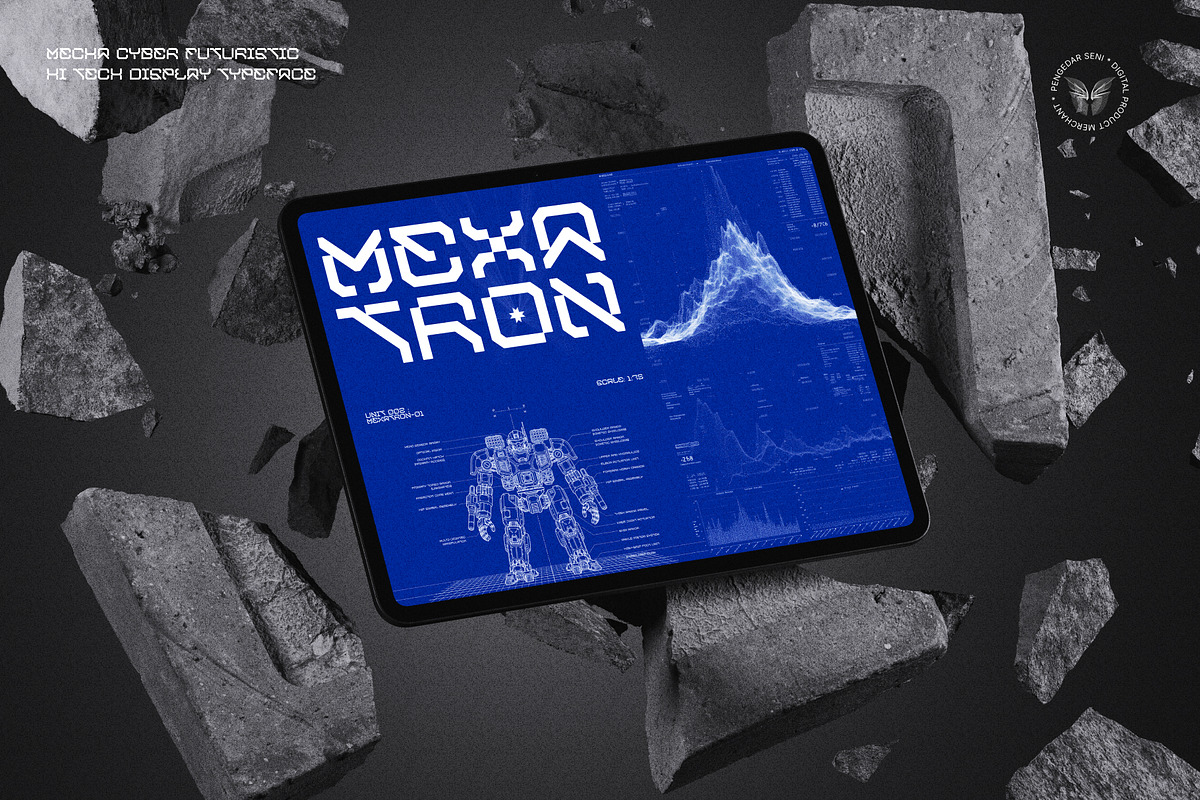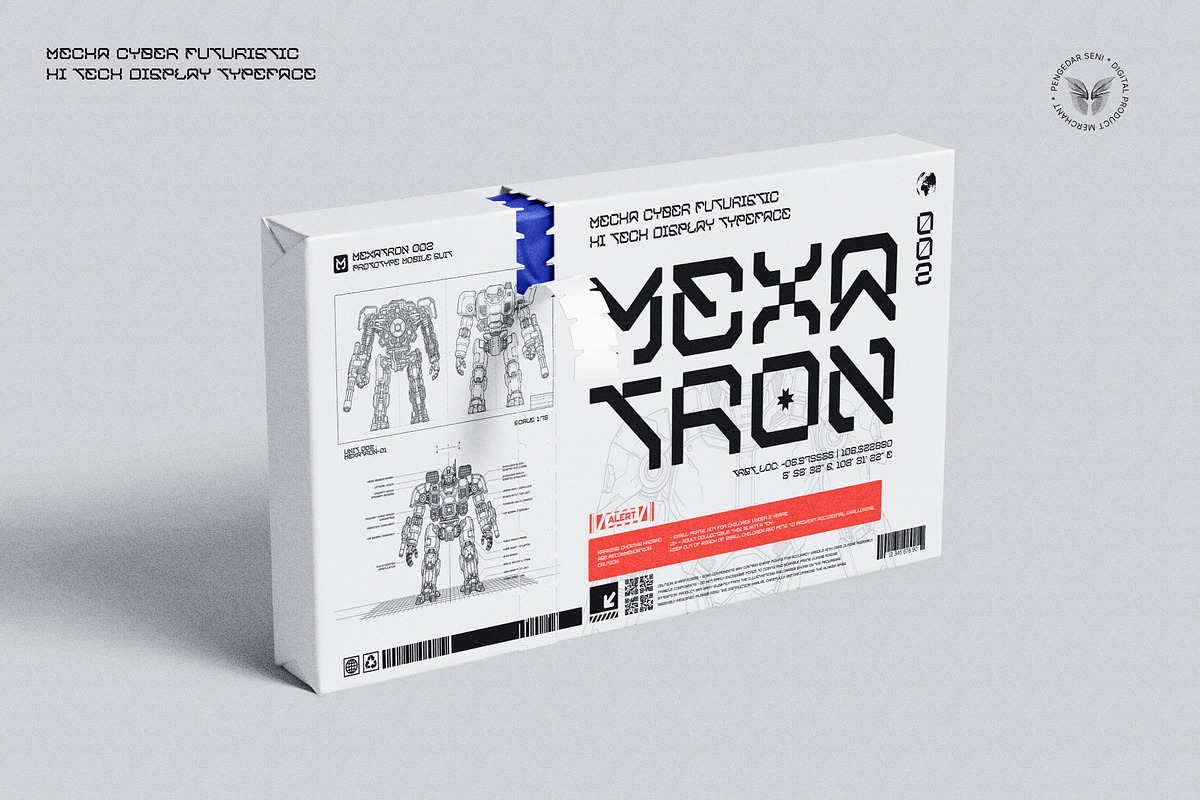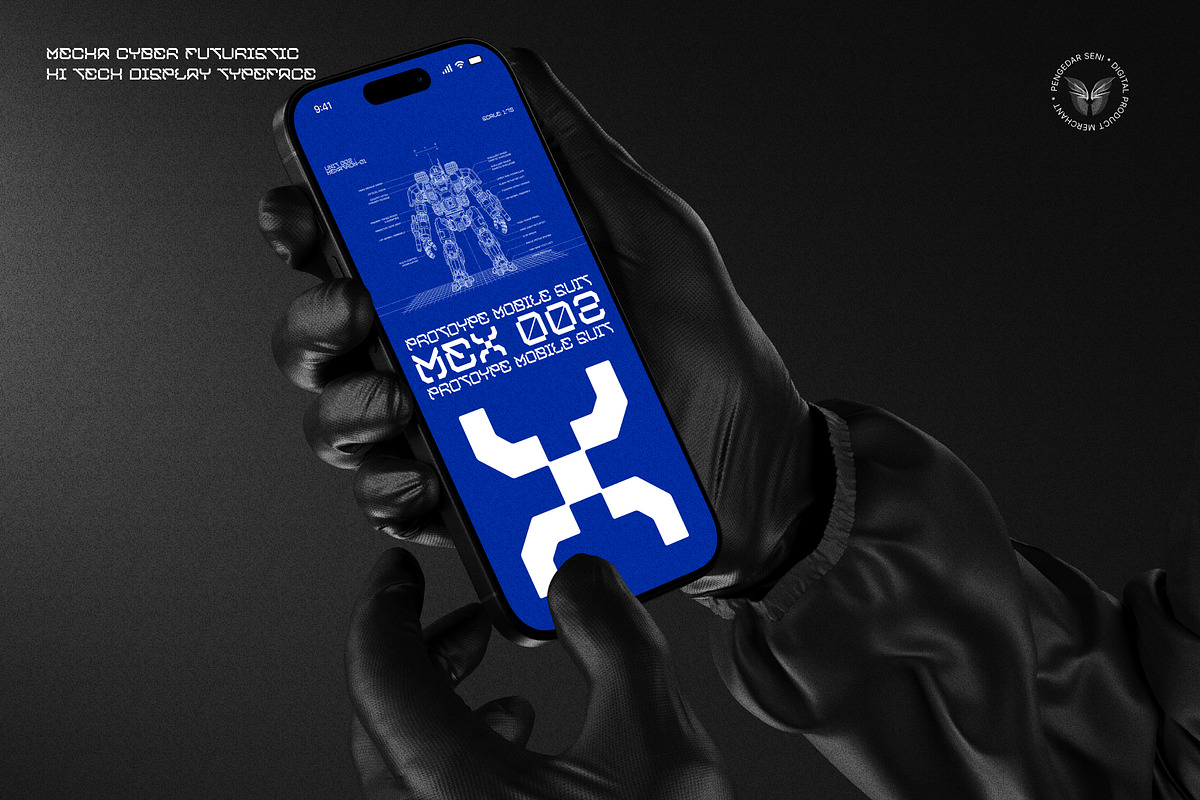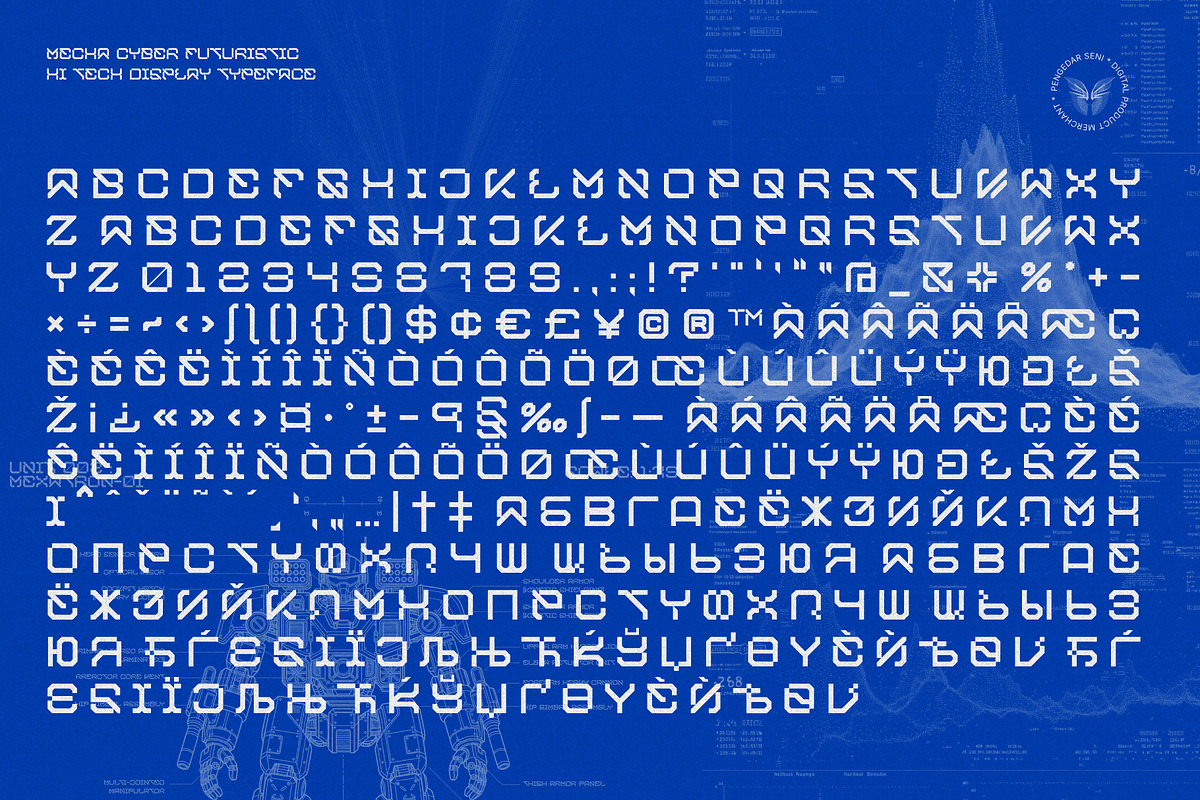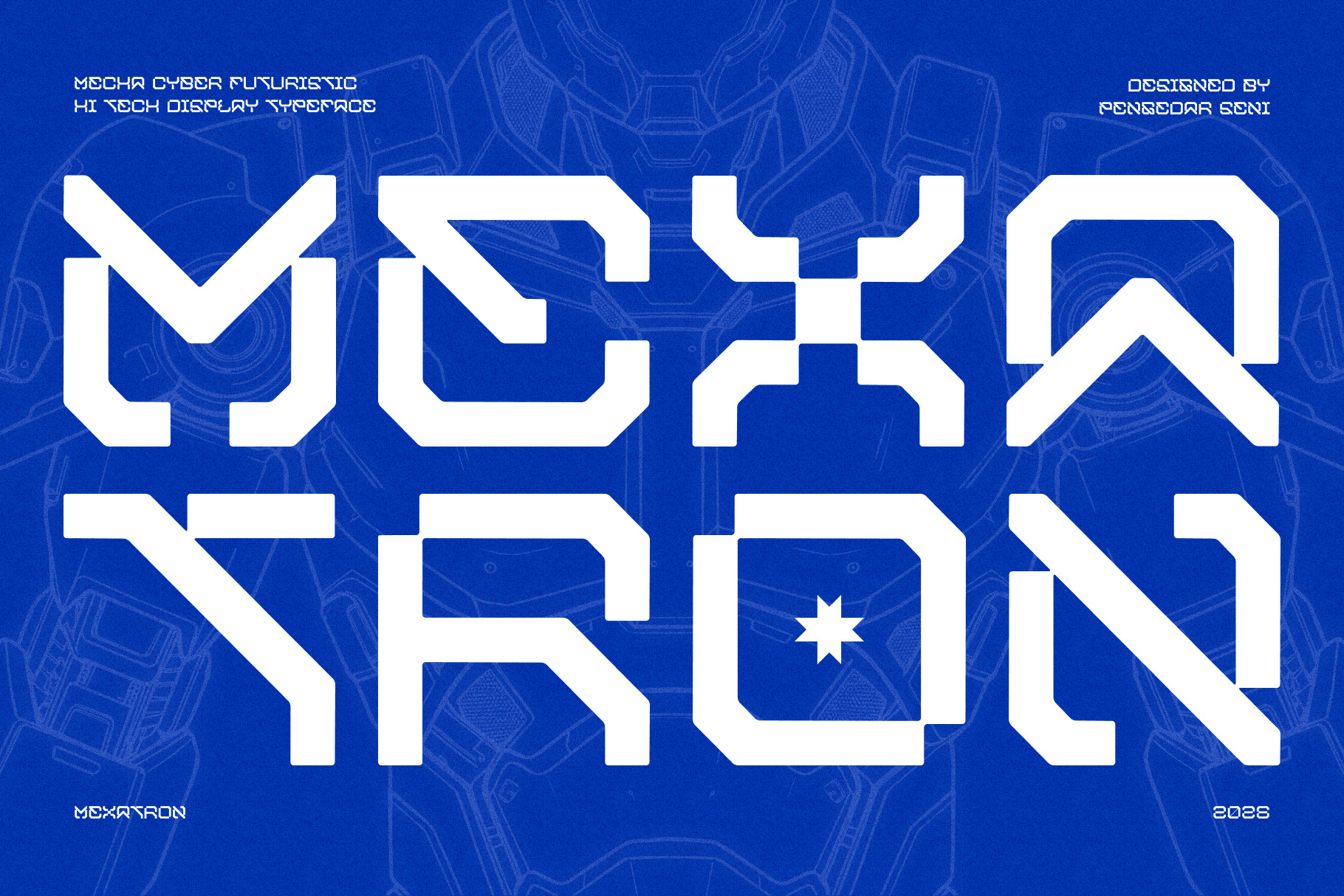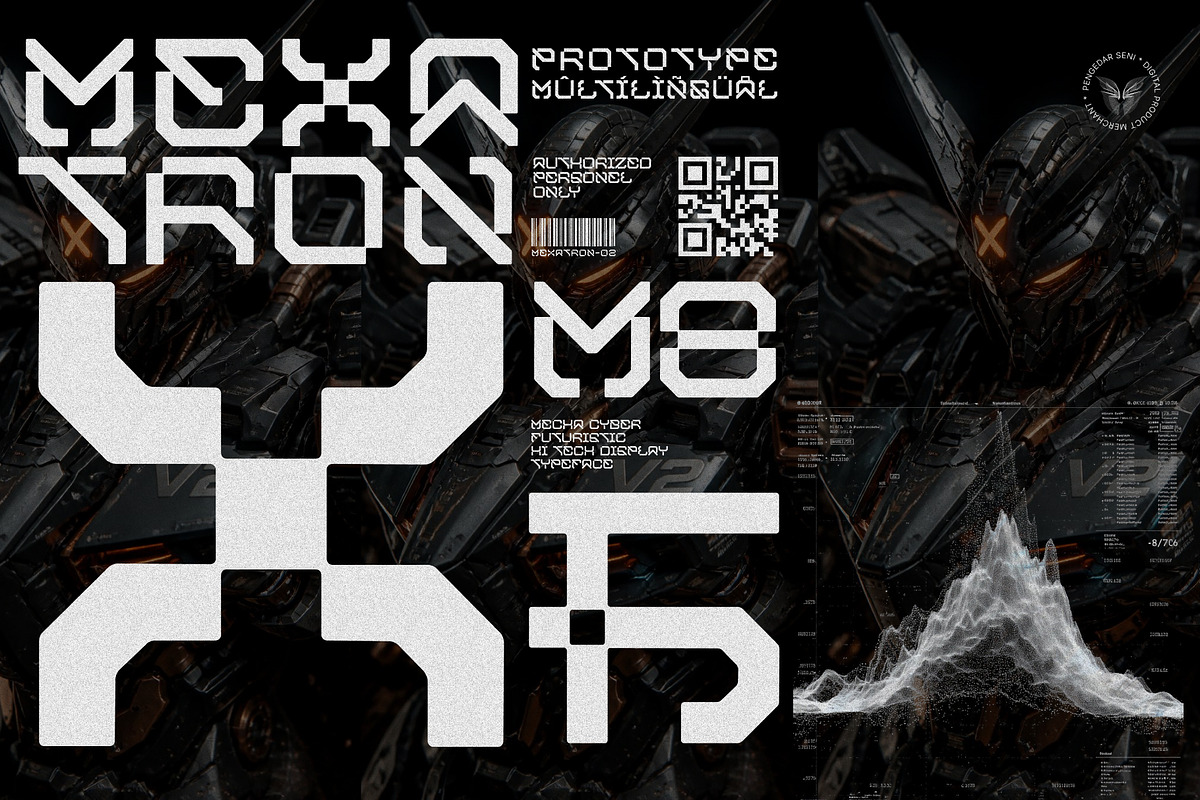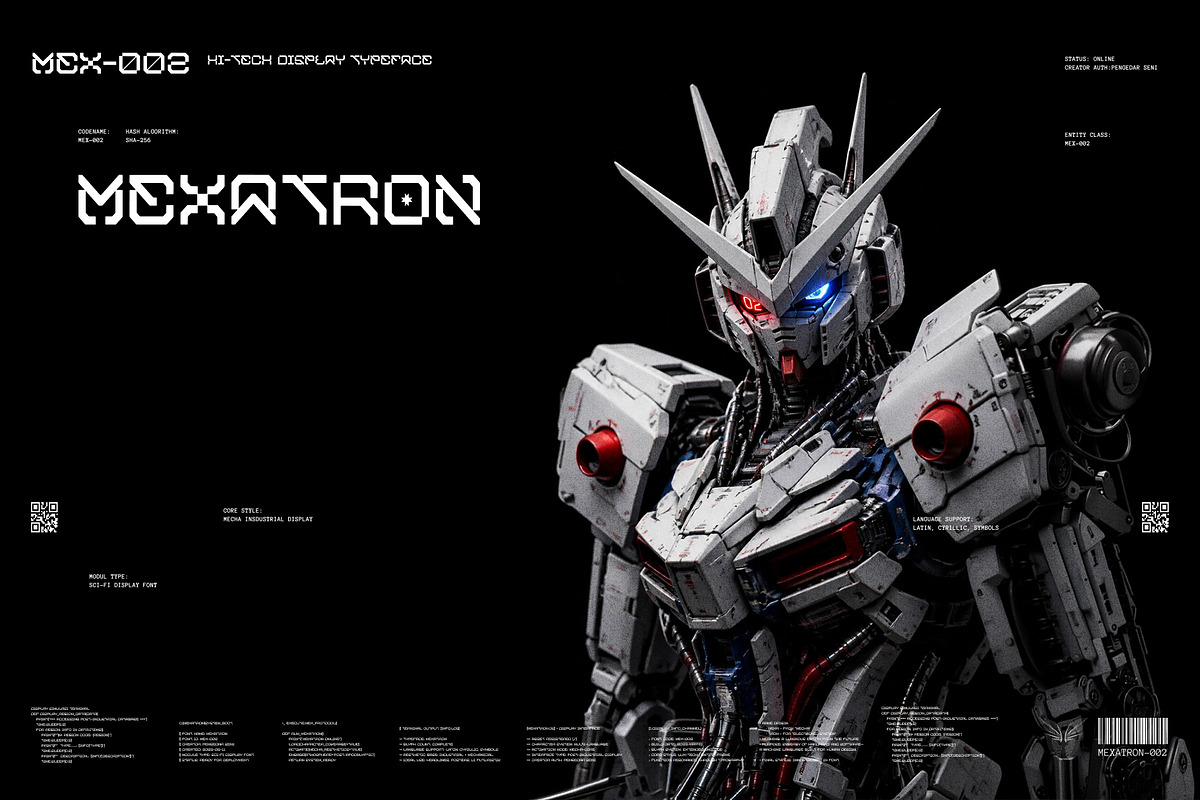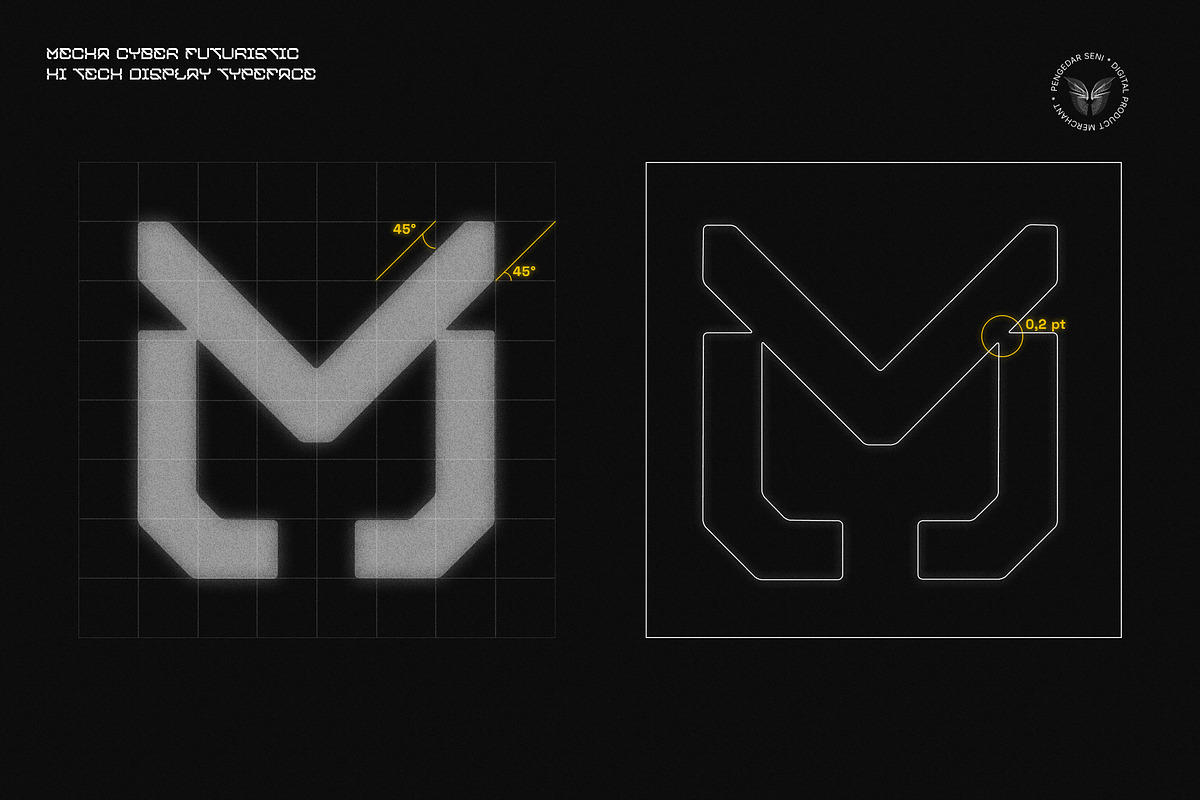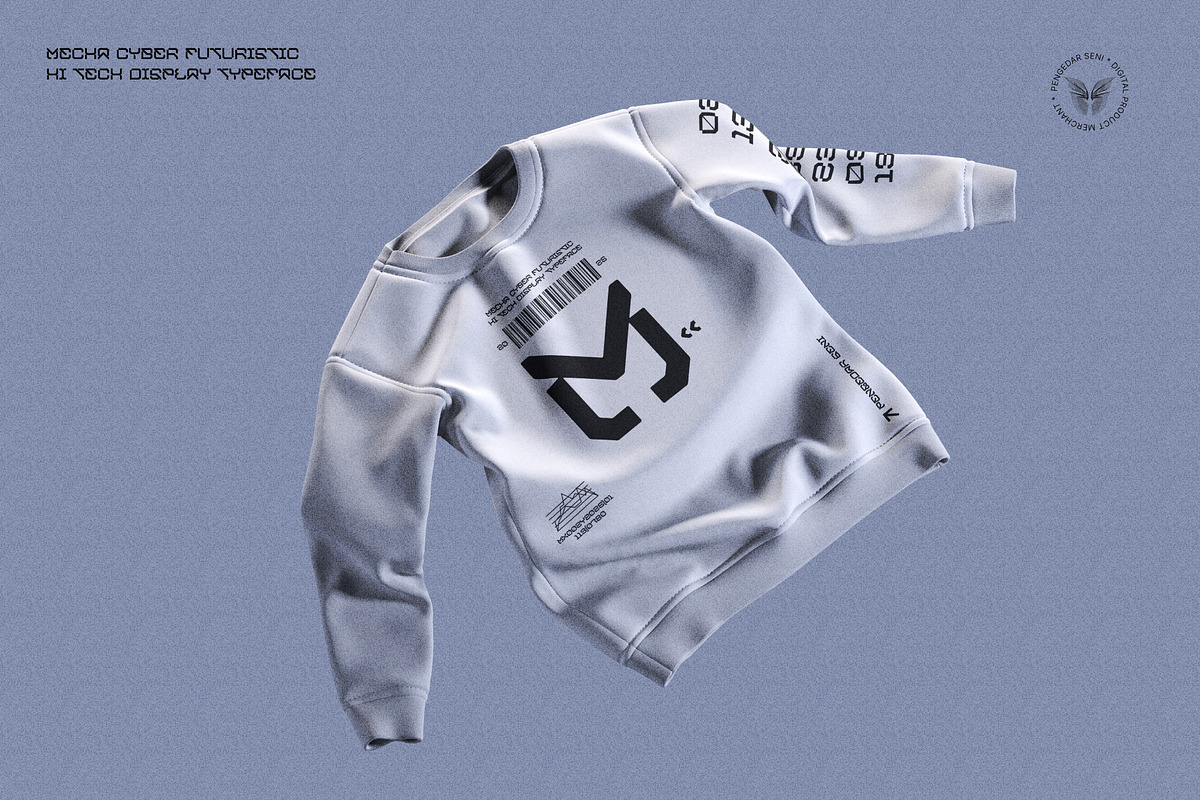
Mexatron - Sci-Fi Display Font
Forged from steel and code. The ultimate typographic mobile suit.
MEXATRON is a heavy-duty, cyber-futuristic display typeface engineered for the next generation of visual communication. Deeply inspired by mecha anime, advanced robotics, and dystopian industrial aesthetics, this font acts as the ultimate typographic armor for your creative projects.
The Philosophy Behind MEXATRON ⚙️
Mexa (Mecha / Mechanical): Represents raw, physical power, heavy machinery, and the imposing structure of giant mobile suits.
Tron (Electronic System): Symbolizes the digital core, the glowing UI screens, and the high-tech circuitry that brings the machine to life.
Together, MEXATRON is the perfect synergy of hardware and software—a machine language built for human design.
Technical Precision: 45° Angles & Fluid Bridges 📐
MEXATRON isn't just drawn; it's constructed. The letterforms are built on a rigid geometric grid, heavily featuring signature 45-degree angle cuts that mimic the aerodynamic armor plating of futuristic robots and spacecraft. To balance this aggressive industrial silhouette, the design incorporates a fluid bridge system—subtle, mathematically calculated smooth transitions at the joints. This prevents the font from feeling overly stiff, simulating the seamless, fluid movement of mechanical hydraulics and giving it a highly polished, premium tech finish.
Why Choose MEXATRON?
Extensive Multilingual Support: Equipped with a massive character set including Basic Latin, Extended Latin, and comprehensive Cyrillic glyphs, ready to deploy across global projects.
Mecha Industrial DNA: The absolute best choice for sci-fi blueprints, HUD (Heads Up Display) interfaces, and mechanical schematics.
Streetwear Ready: Perfect for tech-wear branding, cyberpunk apparel, and Y2K industrial hoodie designs.
Striking Geometric Alternates: Features unique character constructions that look like coded alien technology or classified military insignias.
Perfectly Deployed For:
Mecha anime titles, sci-fi posters, synthwave album art, tech-wear clothing lines, esports team branding, futuristic gaming UI/UX, mechanical product packaging, and post-apocalyptic branding.
Equip your design with MEXATRON and let your typography pilot the future.